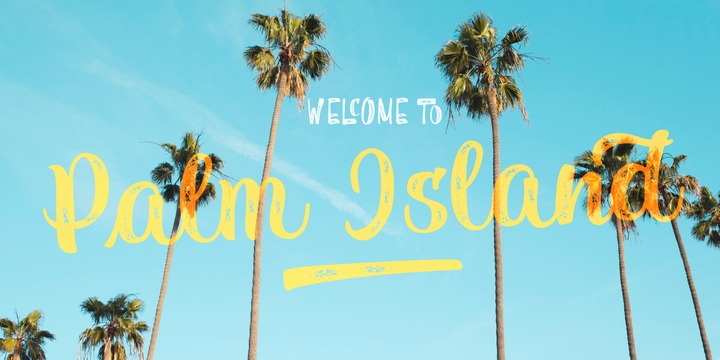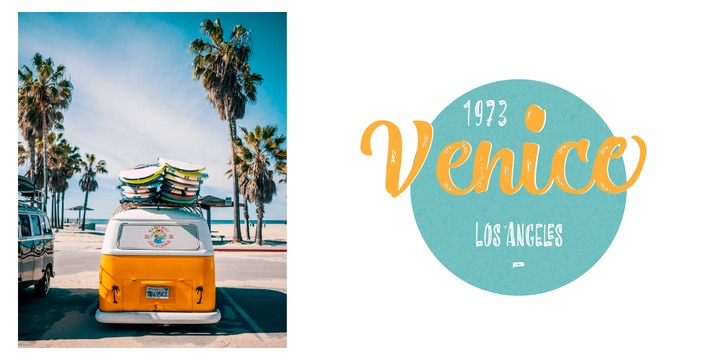
Beach Please Vintage Is a font family designed with pointed brush and watercolours adding a grunge-rough texture.
After the success of Beach Please, we release a new version, keeping the relaxed and tender brush, a bit inspired by sign painting.
The caps have a bizarre look because of the reversed contrast on some letters.
We have a slanted, wide version for each weight.